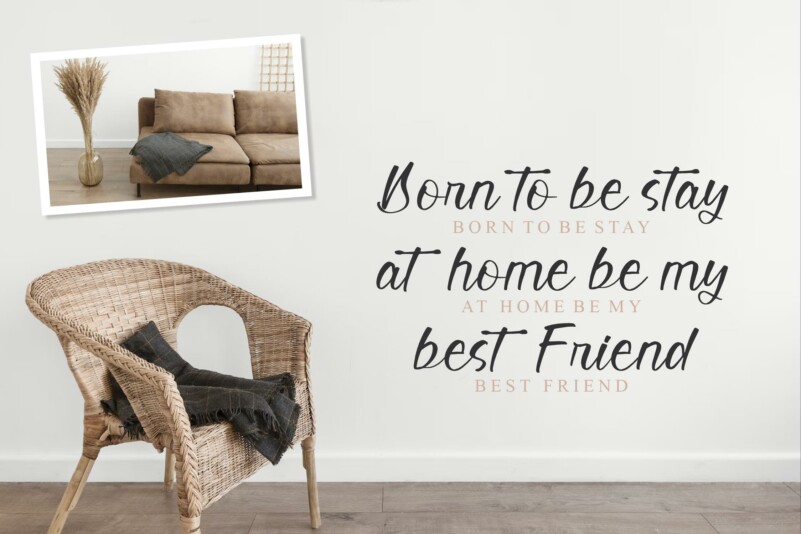
Marmhott Jengala Font
Marmhott Jengala Font is a Modern Script Font, suitable for any projects such as: logos, branding projects, homeware designs, product packaging, mugs, quotes, posters, shopping bags, t-shirts, book covers, name card, invitation cards, greeting cards, label, photography, watermark, special events, and all your other lovely projects that need a beautiful script taste.